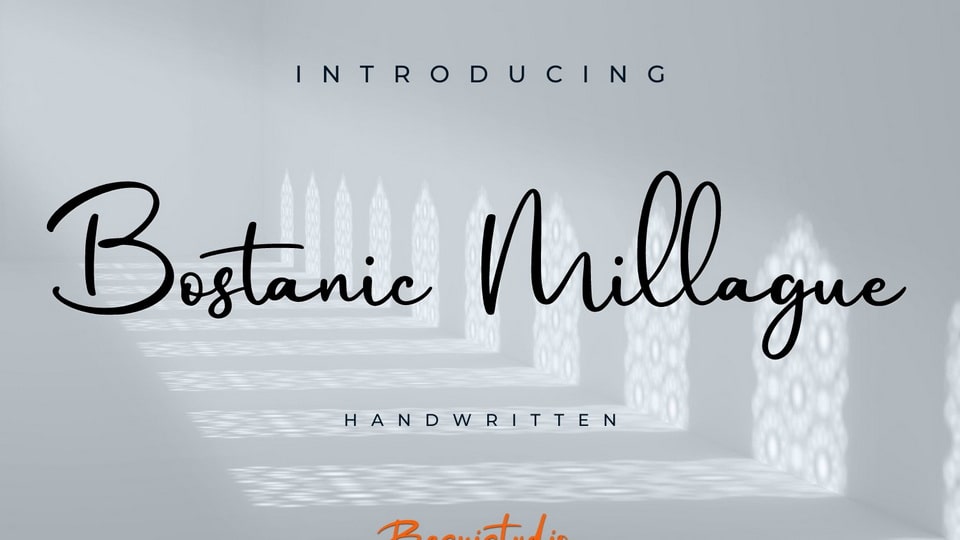
Download Bostanic Millague font, a handwritten typeface, made with natural style and precision strokes. Perfect for branding, websites, and editorial designs.